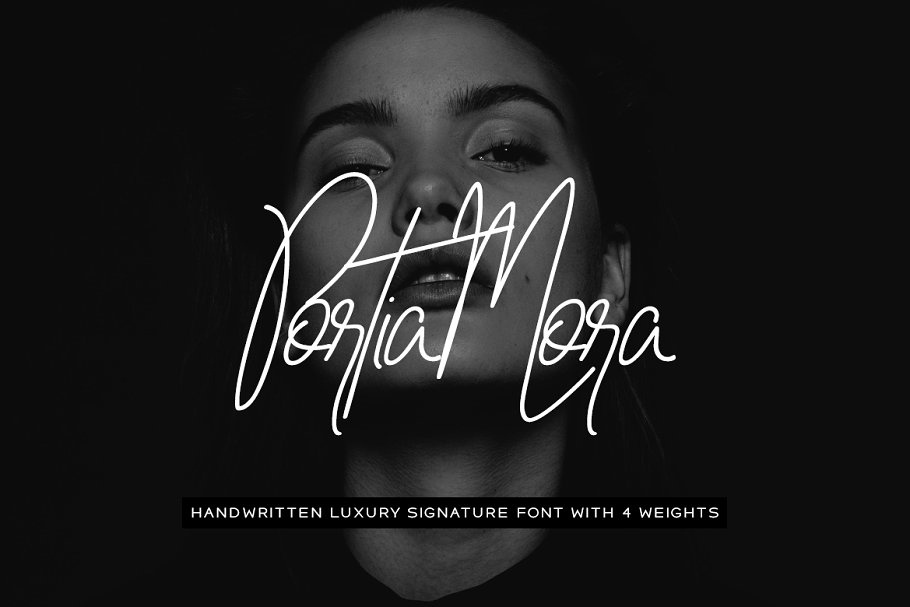
Portia Mora Font
Portia Mora Font is perfect for elegant fashion boutiques, sophisticated women's lifestyle brands, graceful beauty services, refined personal styling, luxurious feminine coaching, and upscale women's wellness centers. Its graceful character makes it ideal for sophisticated wedding planners, elegant jewelry designers, refined women's retreats, graceful dance studios, luxurious spa services, and any project requiring feminine sophistication with elegant grace and refined beauty appeal.
This font is exciting because it embodies the perfect balance of strength and elegance that defines sophisticated femininity while delivering exceptional functionality for brands celebrating women's grace, intelligence, and refined taste. The beautifully crafted letterforms flow with natural elegance and confident sophistication, creating typography that feels both empowering and gracefully refined, making it ideal for organizations seeking to communicate authentic feminine strength and elegant sophistication.
The Portia Mora Font family typically includes Light, Regular, Medium, and Bold weights with elegant alternates, graceful ligatures, and sophisticated decorative elements that enhance its refined personality. This comprehensive collection enables feminine professionals to create distinguished brand systems that maintain graceful credibility while offering flexibility for various women-focused applications requiring both elegant appeal and contemporary sophisticated market positioning.
Whether you're developing identity systems for sophisticated women's brands, creating materials for elegant feminine services, or designing promotional content for refined lifestyle organizations, Portia Mora Font Free Download delivers the graceful sophistication and feminine elegance that resonates with women seeking authentic representation and refined quality. Its elegant presence ensures memorable brand recognition across digital platforms and print materials, making it perfect for websites, mobile applications, and feminine campaigns that celebrate women's grace, sophisticated beauty, and the transformative power of elegant femininity with contemporary sophistication and authentic graceful appeal.